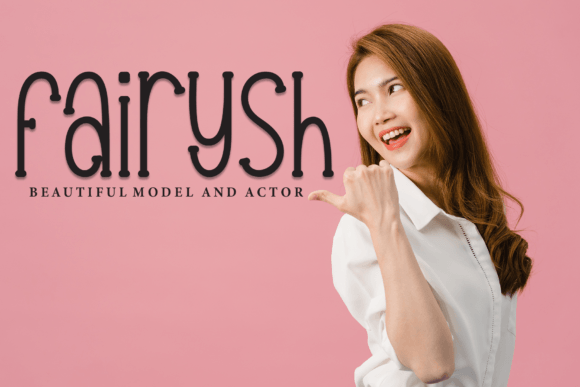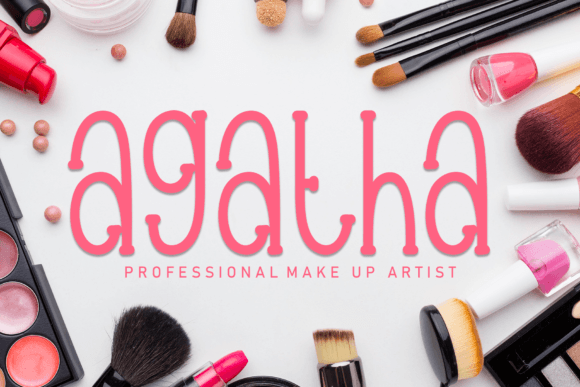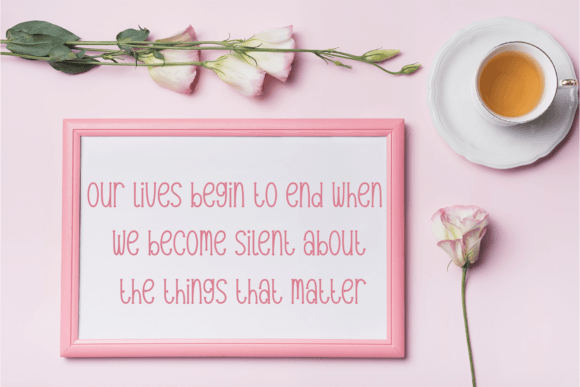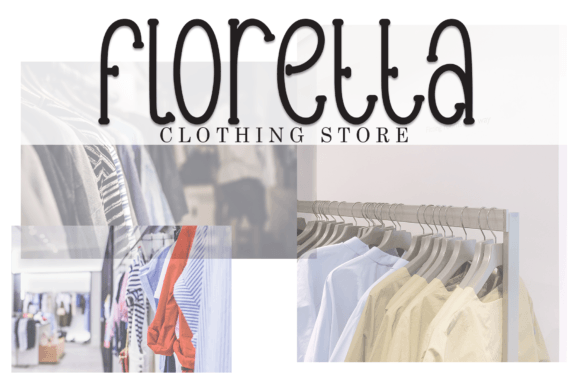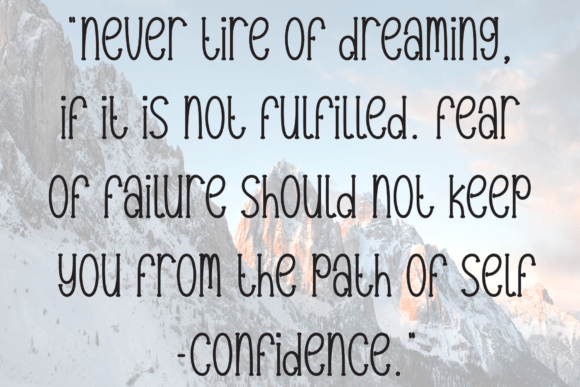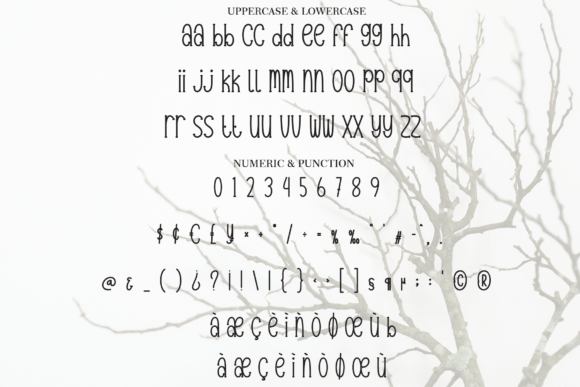
Introduction to Lanky Font
Have you ever been brainstorming ideas for a creative project, only to be stumped by the perfect font? We’ve all been there. But what if we told you about a font that’s as sweet as it is versatile? Lanky Font is a delightful display font that’s sure to bring a smile to your face.
Whether you’re designing wedding invitations, birthday cards, or any other project that needs a fun touch, Lanky Font is an excellent choice. With its high-quality design and transparent background, this font is a valuable resource for any designer looking to add a bit of whimsy to their work.
Key Features of Lanky Font
- Unique, hand-drawn design with a touch of whimsy, perfect for creative projects
- Includes a comprehensive character set, including uppercase and lowercase letters, numerals, and punctuation marks
- Perfect for use in digital and print-based creative projects, from logos and branding to editorial and advertising content
Honest Review: Lanky Font
I recently stumbled upon the Lanky Font and I must say, it’s a great addition to my design resource library. The Lanky Font is a high-quality, modern sans-serif typeface that’s perfect for creative projects.
- ✨ High-quality design that’s ideal for digital and print projects.
- ⚠️ The font may not be suitable for very small text sizes due to its condensed nature.
- ⚠️ Some users may find the font too minimalist for certain design styles.
Overall, I’m impressed with the Lanky Font and I think it’s a great addition to any designer’s toolkit. With its high-quality design, easy installation, and free download, it’s a must-have for any creative project. Just be mindful of the limitations mentioned above and you’ll be golden.
Lanky Font is a high-quality design resource ideal for creative projects. Its unique style and transparent background make it perfect for various applications.
Tips for Getting the Most Out of Lanky Font
Use Lanky Font for headings and titles to add a touch of elegance to your design.
Combine Lanky Font with a transparent background to create a visually appealing effect.
Lanky Font is ideal for:
Designing invitations and greeting cards.
Creating social media graphics and posts.
Developing branding materials, such as logos and business cards.